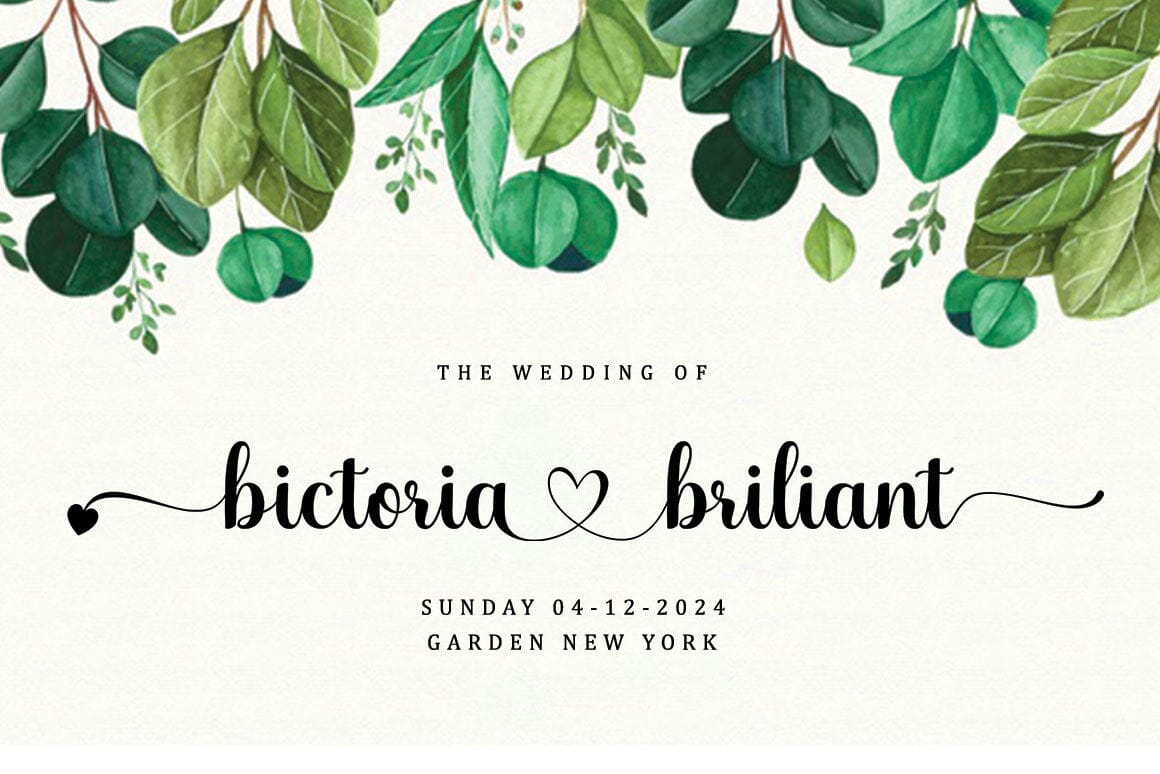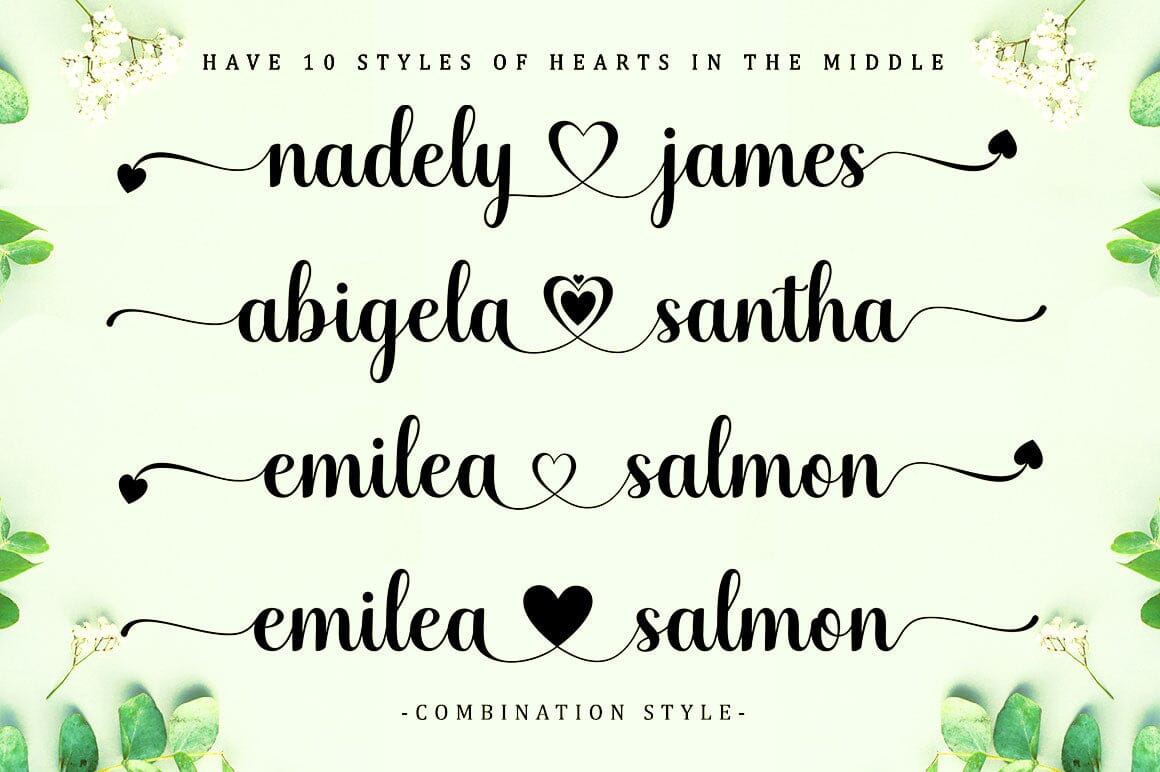
Holedan Heart Font – Free Romantic Script Typeface
Introducing the Holedan Heart font, a romantic and elegant script typeface designed to bring emotion and beauty to your design projects. With its flowing strokes, connecting hearts, and graceful swashes, this font captures the essence of love and femininity. Whether you’re working on wedding invitations, greeting cards, branding, or packaging, Holedan Heart provides a luxurious and expressive solution.
Elegant, Feminine, and Easy to Read
Holedan Heart stands out with its clean, sleek lines and beautifully crafted ligatures. It’s both stylish and highly readable, making it suitable for both decorative and professional applications. Thanks to its luxurious letter connections and simple charm, it fits perfectly into a wide variety of themes—from romantic to formal, and everything in between.
Perfect for Many Design Uses
This font was made with creative freedom in mind. It includes a variety of stylistic alternates and swashes to let your designs shine. Ideal for:
- Wedding and greeting cards
- Invitations and stationery
- Product packaging and labels
- Logos for beauty, fashion, or handmade brands
- Restaurant menus, books, magazines, and more
- Start and end swashes on lowercase letters
- 10 styles of connecting hearts
- 20 alternate stylistic options
Add romance and charm to your next project with the Holedan Heart font. It’s elegant, feminine, and made to stand out beautifully.